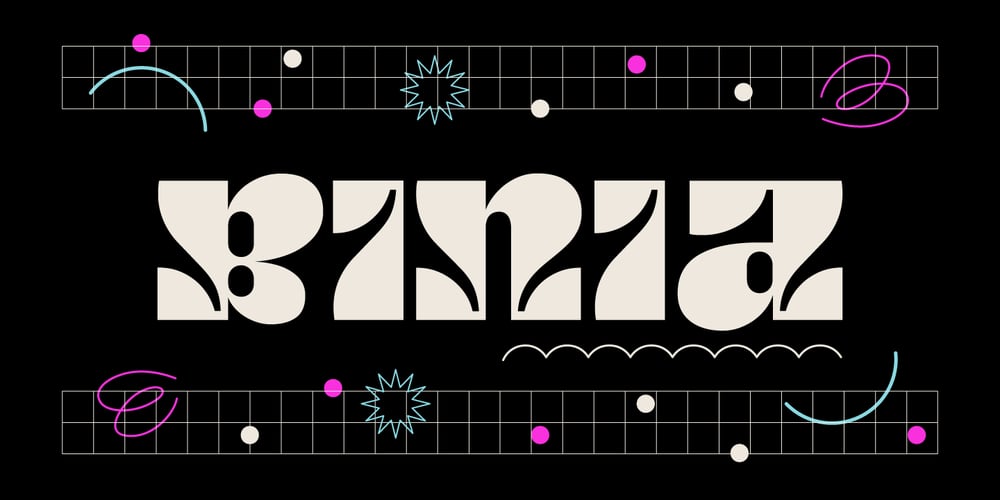
Binia Font Family was designed by Agnieszka Olszewska and published by Agnieszka Ewa Olszewska. Binia contains 1 styles and family package options. Binia is an experimental and playful display font. It contains two different character sets. One set you will find as lowercase, second under uppercase + several alternates. Mix as you like. Great for logo, posters. Look best in large size.